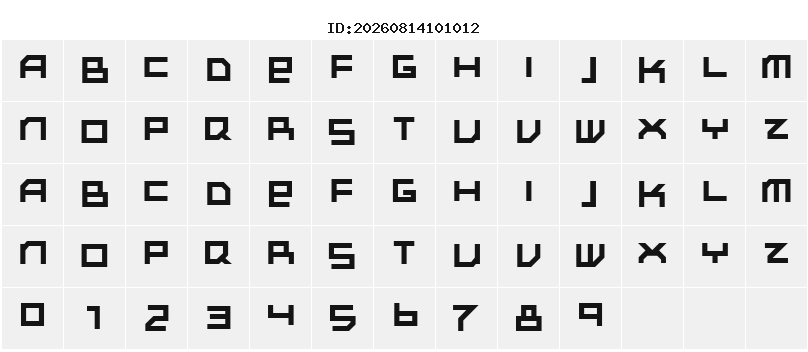
Subotnik Preview
• Font Name: Subotnik
• Full Font Name: Subotnik
• PostScript Name: Subotnik
About Subotnik.ttf
Subotnik.ttf is a modern, elegant sans-serif font designed for ultimate readability and visual harmony. Perfect for branding, headlines, web design, and print materials.